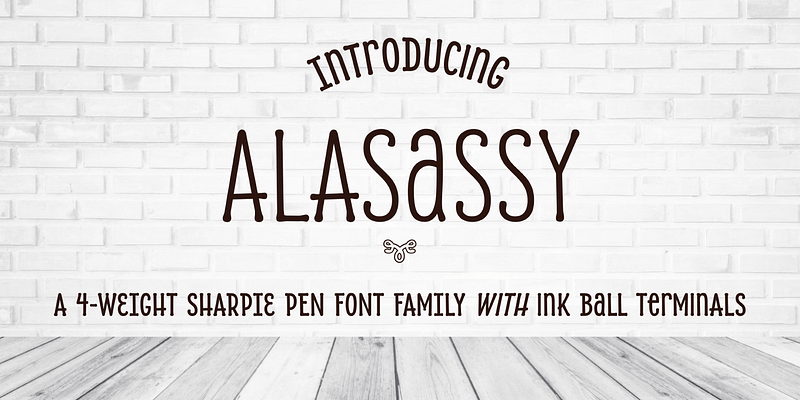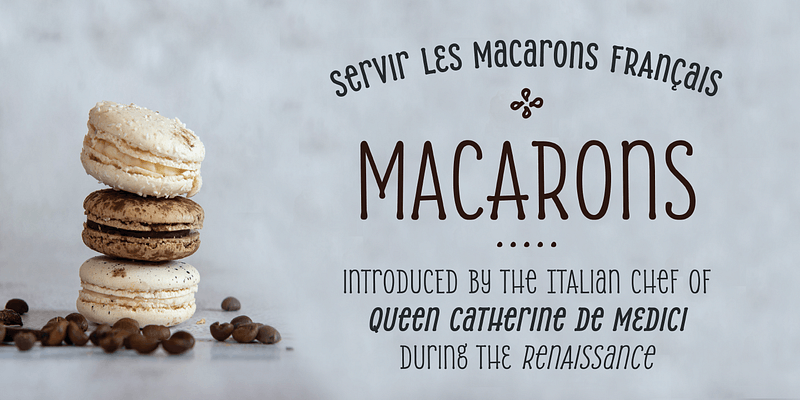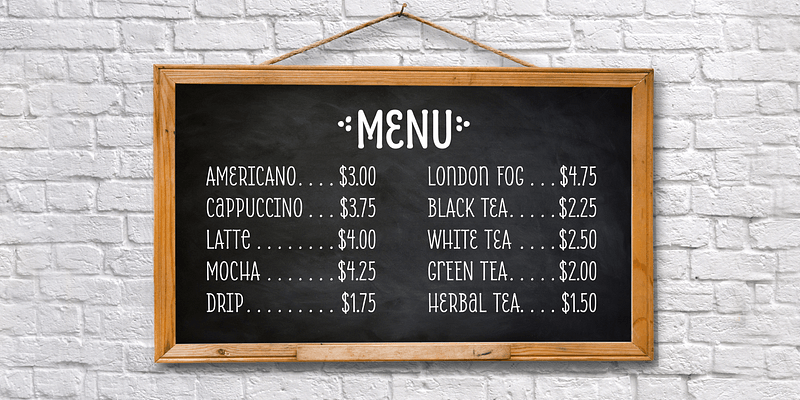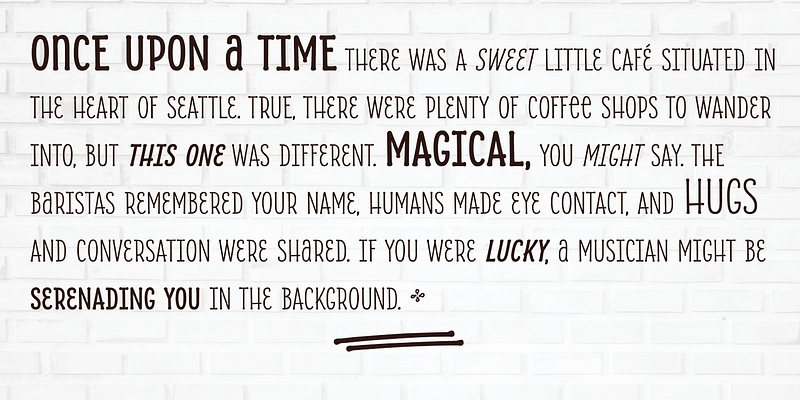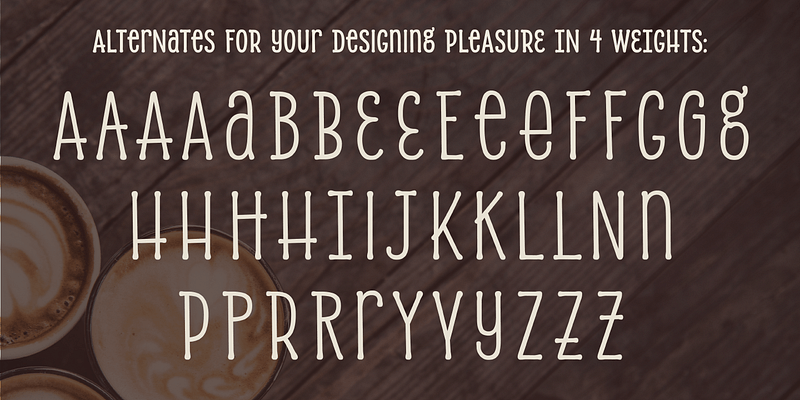
Bring some sass to your signage! Alasassy is a font inspired from Sharpie pen drawings, featuring ink ball terminals. The lowercase letters are a mix of uppercase and lowercase letters that share the same cap height and baseline. There are several alternate characters with a mix of high and low crossbars as well as crossbar overhang options and language support for each. This display font will bring some zest to your logo, signage, packaging design or large titles on book covers or advertising. It is a great combination of an organic, hand drawn feel but still clean and crisp enough to look professional. Enjoy!
Type design enthusiast and legibility evangelist, Andrea Leksen’s passion is typography. She currently contracts as a type designer for Microsoft, consults as an Art Director managing Amazon’s fonts, and releases new fonts through her design firm, Leksen Design. Her font releases include Alasassy, Mr Gabe, Nordeco, Nordique Pro, and Bemis.